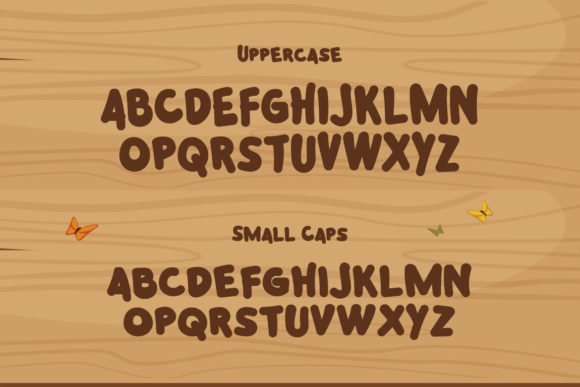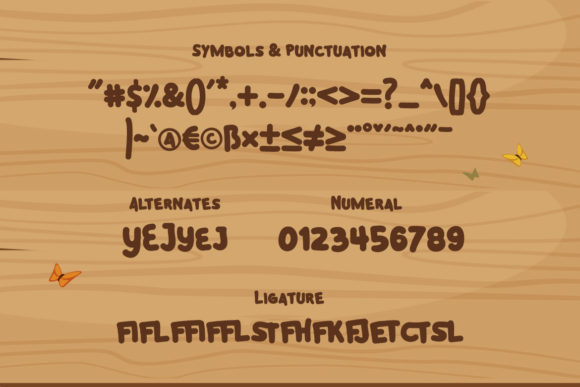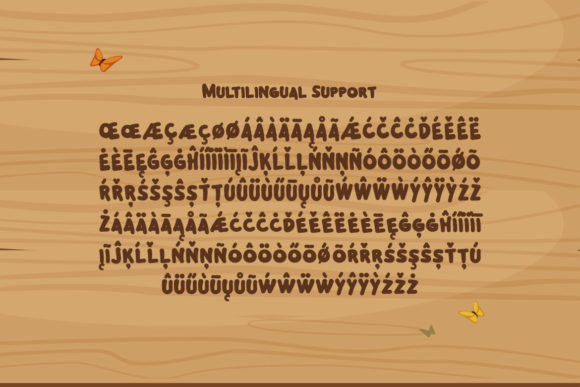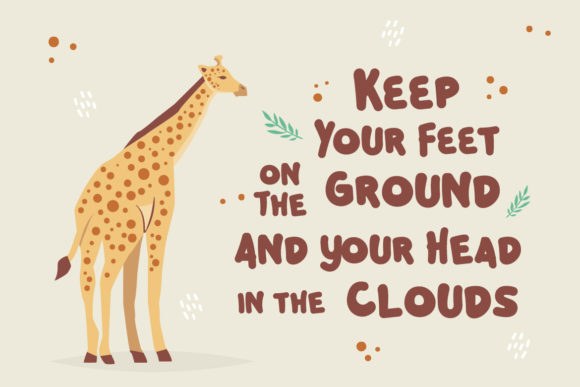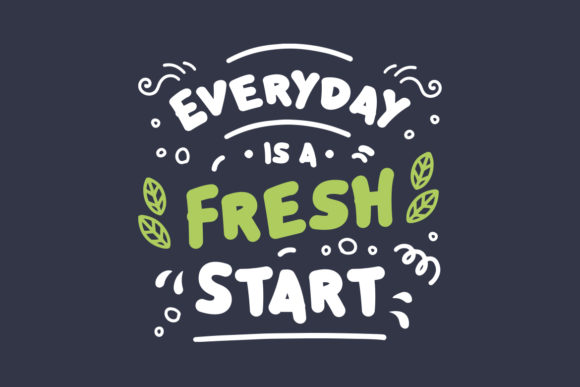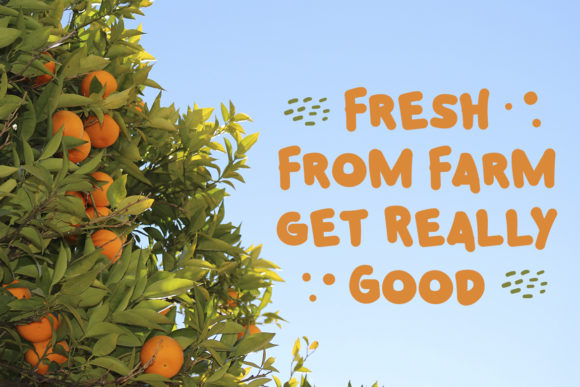
Introduction to Jungle Hope Font
Jungle Hope is a cute and friendly display font.
Whimsical and a bit quirky, this font will brighten up each of your designs Add it confidently to your projects, and you will love the results.
Key Features of Jungle Hope Font
Why Choose Jungle Hope Font?
Jungle Hope Font offers exceptional quality and versatility, making it a valuable addition to your design toolkit. Whether you’re creating for personal projects or commercial use, Jungle Hope Font delivers professional results.